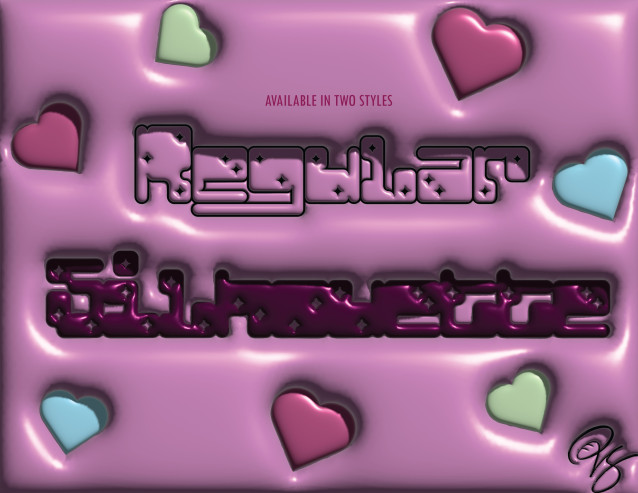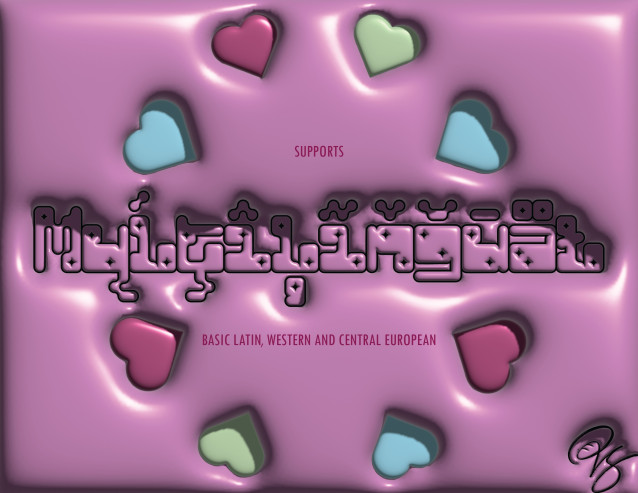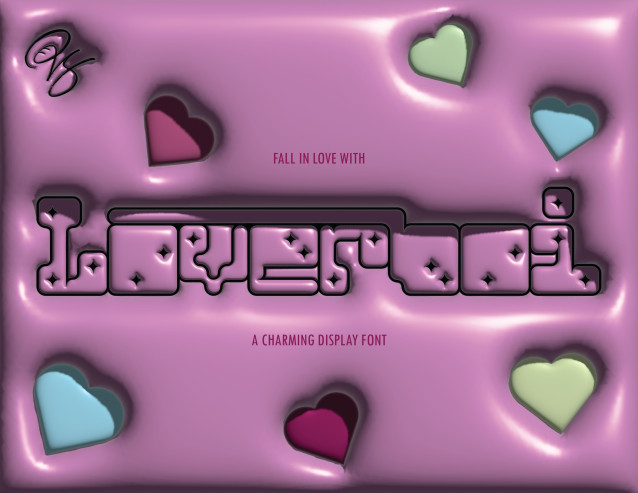
Loverboi Font a romantic yet futuristic display font. It has rounded box aesthetic that connects each letter seamlessly like they are tailor-made for each other. It comes in two styles: Regular, which offers a clean, outlined design; and Silhouette, a bold, filled-in version of the same look.
With over a thousand OpenType features including 48 stylistic sets for both standard lowercase and stylistic alternates, you can mix and match top and bottom swashes to create endless custom combinations and unique expressions.